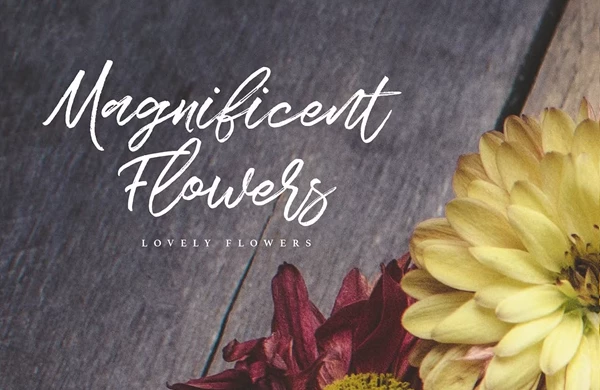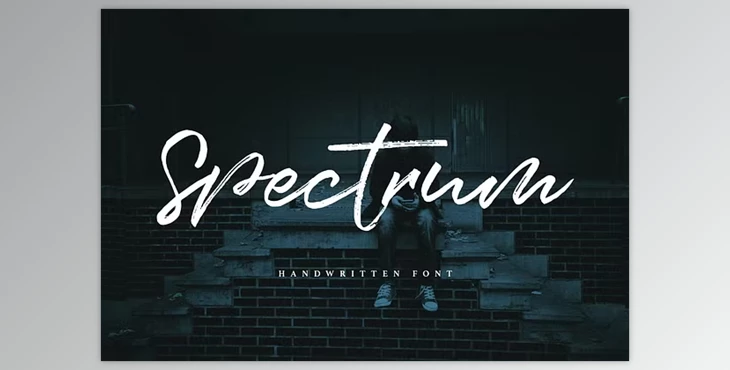
Spectrum Script - Handwritten Font: Introducing Spectrum, a captivating handwritten signature style font meticulously crafted to bring a natural and authentic texture to your designs. Whether you're working on branding projects, quotes, posters, homeware designs, product packaging, t-shirts, business cards, social media graphics, or greeting cards, Spectrum is the perfect choice to add a touch of elegance and personality.
How can we give our text a handwritten look?
You can use "Spectrum Script - Handwritten Font."
This versatile font comes with a complete set of lowercase and uppercase letters, along with a wide range of punctuation, numerals, and multilingual support, ensuring compatibility with various languages and design needs. Additionally, Spectrum includes several ligatures and stylistic alternates for both lowercase and uppercase characters, allowing you to create visually stunning and unique typography compositions.
"Spectrum Script - Handwritten Font" Samples: